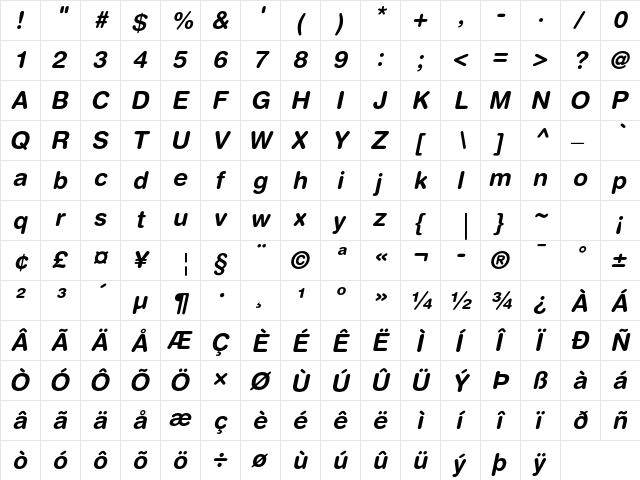
Helvetica Rounded LT Std Bold Oblique Font Preview
| Style | Bold Oblique |
| Designer | Unknown |
Design Context for Helvetica Rounded LT Std Typeface
Helvetica Rounded LT Std softens its letterforms with rounded terminals, giving it an approachable, friendly quality that works well in consumer-facing and digital contexts. The dynamic lean of this cut emphasises speed and emphasis in any layout. Its bold stroke weight gives it real presence on the page.
Well-suited to UI design, mobile interfaces, and any brand that wants approachability without sacrificing clarity.
Font Pairing: Pairs well with a rounded or humanist sans for body copy, maintaining the friendly tone without relying on Helvetica Rounded LT Std to carry extended reading.
Pro Tip: Use Helvetica Rounded LT Std for UI elements, app interfaces, and anywhere a friendly, approachable tone needs to be maintained without sacrificing clarity.